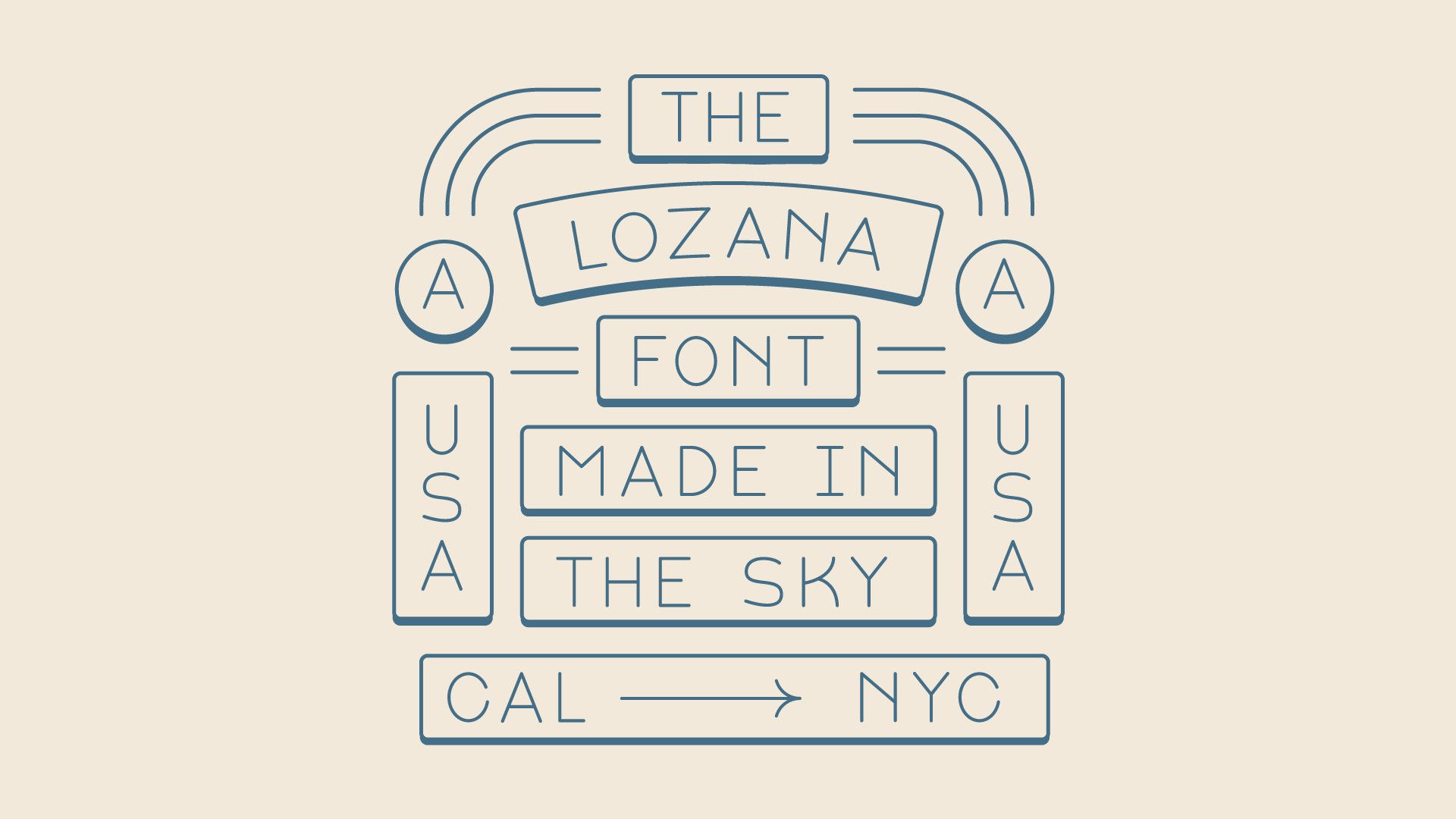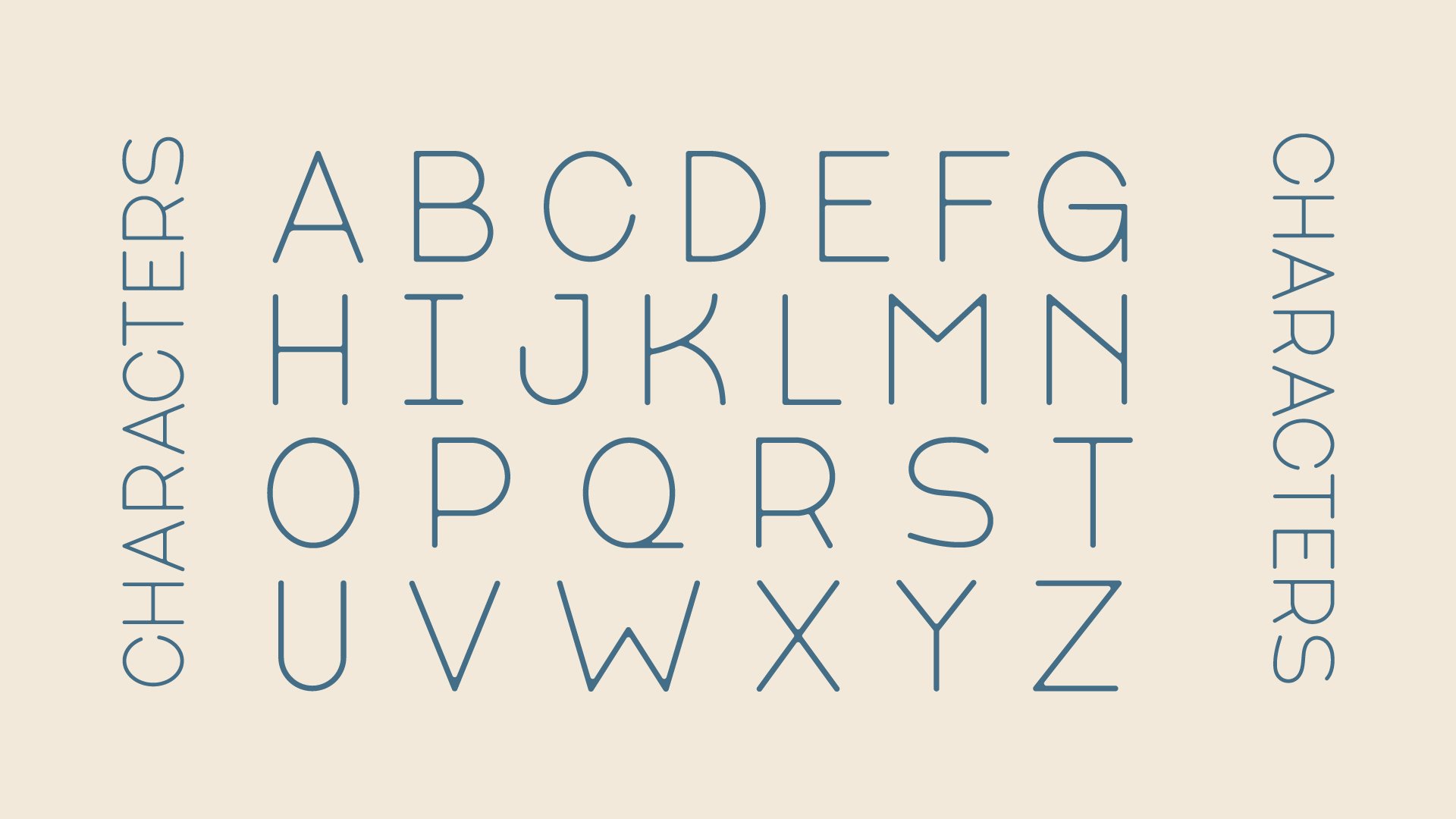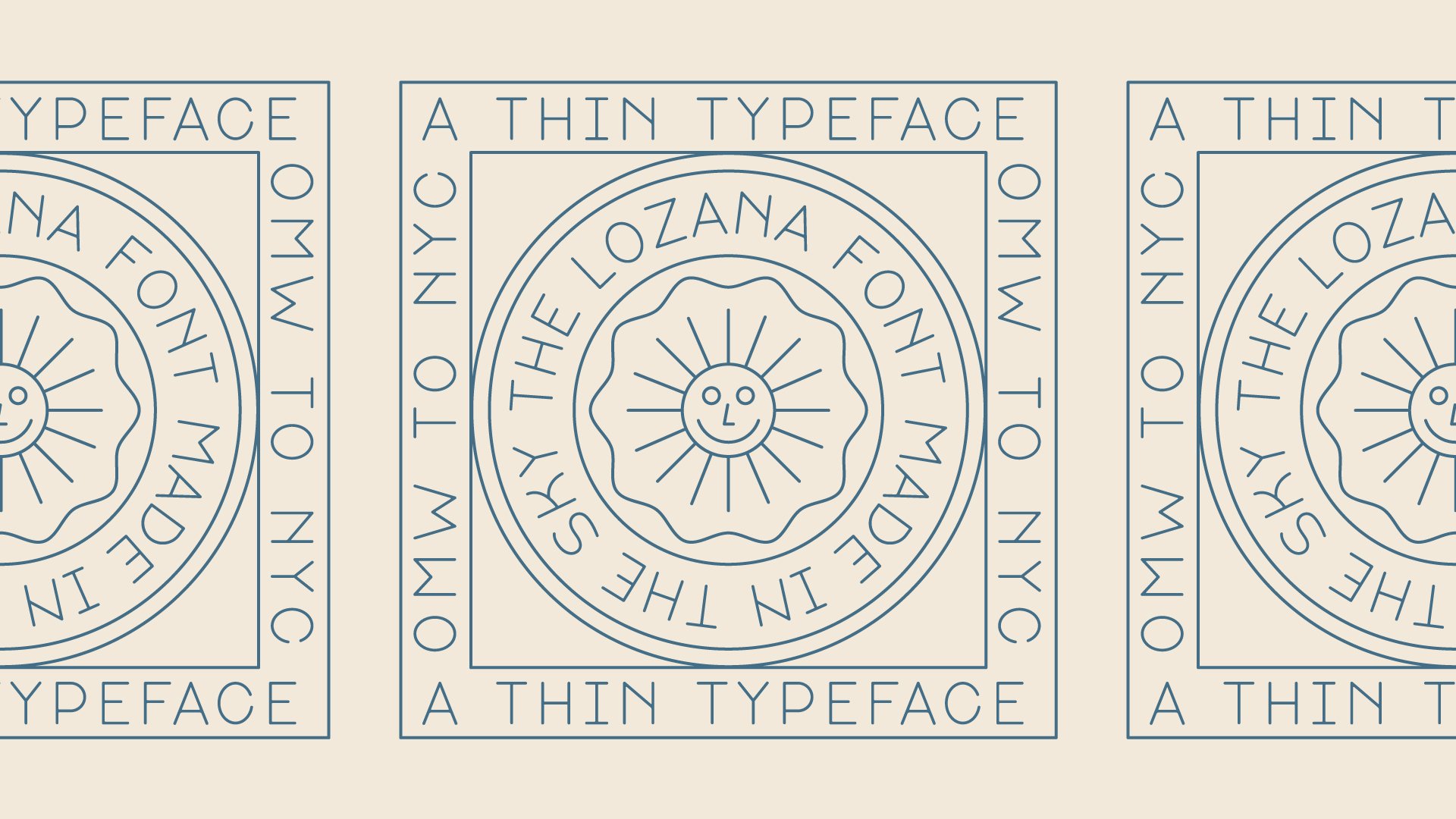
Lozana Typeface
This typeface was 100% made in the sky, on an airplane from California to New York City. I’ve been wanting a clean and simple all caps font that pairs well with mono-line illustration, so here it is! Plus I thought it would be a fun challenge to create a whole typeface on a flight. Share with your friends! Includes numbers and punctuation + Lozana Regular & Lozana Italic.